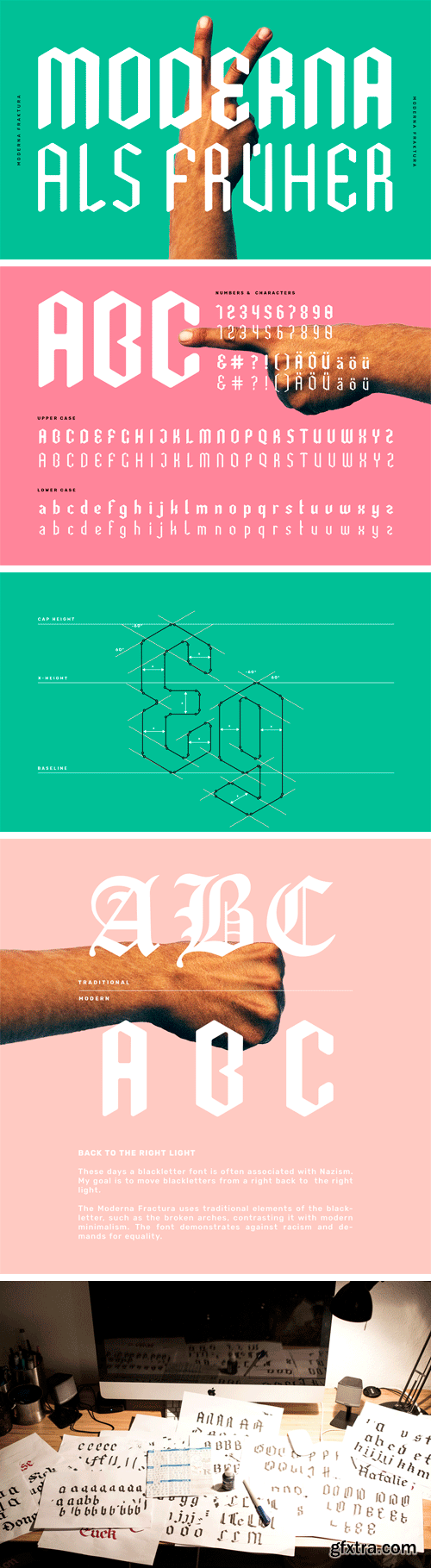
Moderna Fractura Font Family
Moderna Fraktura is a modern blackletter font. From designer: “These days a blackletter font is often associated with Nazism. My goal is to move blackletters from its “right” back to the “right” light. The “Moderna Fractura” uses traditional elements of the blackletter, such as the broken arches, contrasting it with modern minimalism. The font demonstrates against racism and demands for equality”.